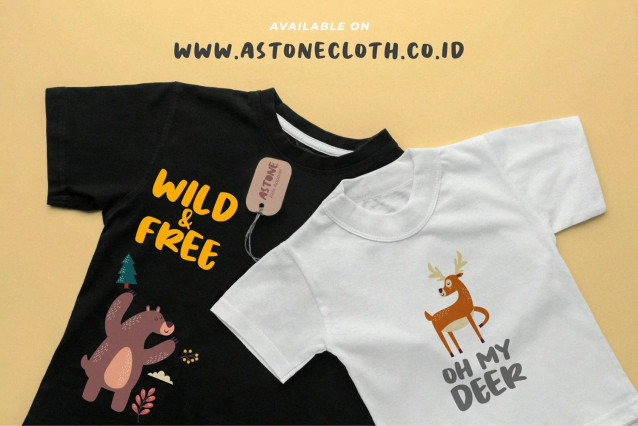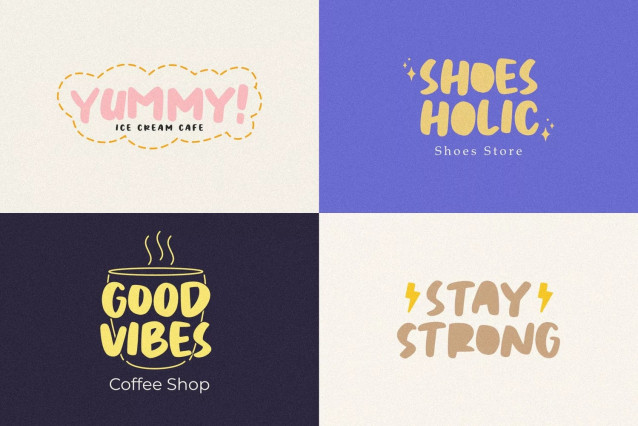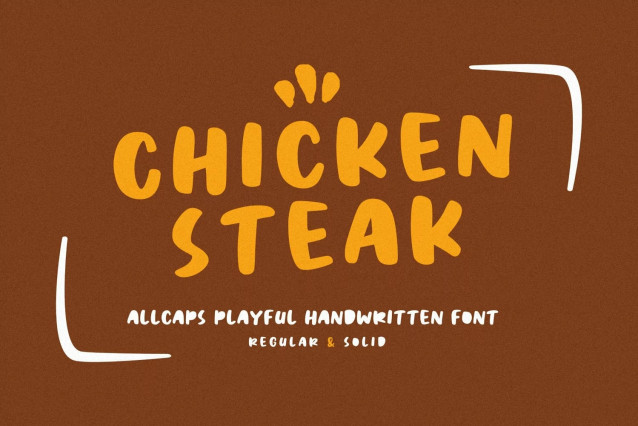
Chicken Steak Font
Chicken Steak Font is a unique and creative font that features cute and quirky letters that resemble chicken steaks. This font is perfect for adding some personality and charm to your designs, whether you are creating logos, posters, flyers, invitations, labels, stickers, or anything else that needs a touch of fun.
Chicken Steak Font is easy to use and customize, and it supports multilingual characters and symbols. You can mix and match the regular and solid styles to create different effects and combinations.